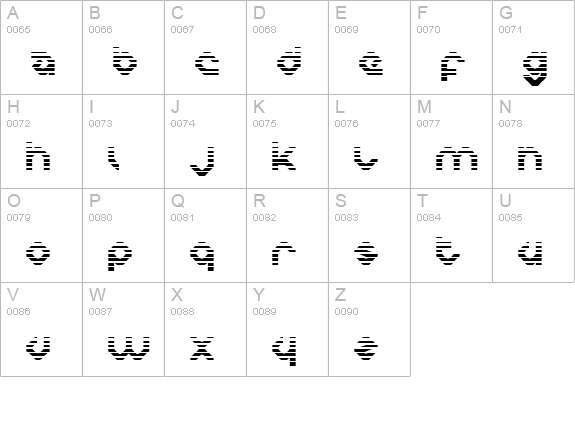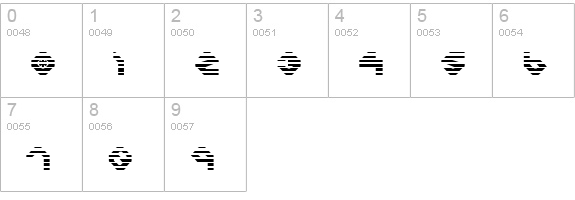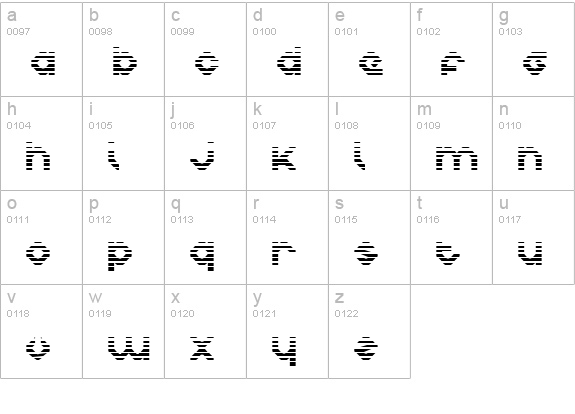
Charlie's Angles Gradient font is a stylish and modern typeface that exudes a sense of elegance and sophistication. With its sleek curves and gradient effect, this font is perfect for adding a touch of glamour to any design project. Whether you're creating a logo, poster, or website, Charlie's Angles Gradient font will make your text stand out and grab attention. What's even better is that Charlie's Angles Gradient font is available for free download at FontsMarket.com. This means you can easily add this eye-catching font to your collection without spending a dime. So why wait? Give your designs a luxurious touch with Charlie's Angles Gradient font today!